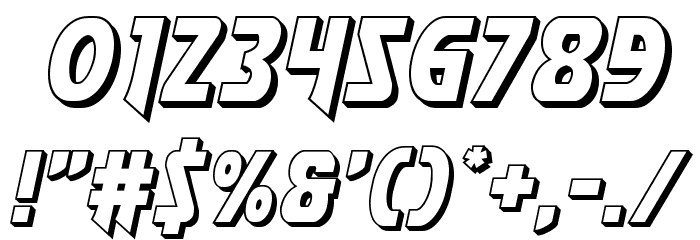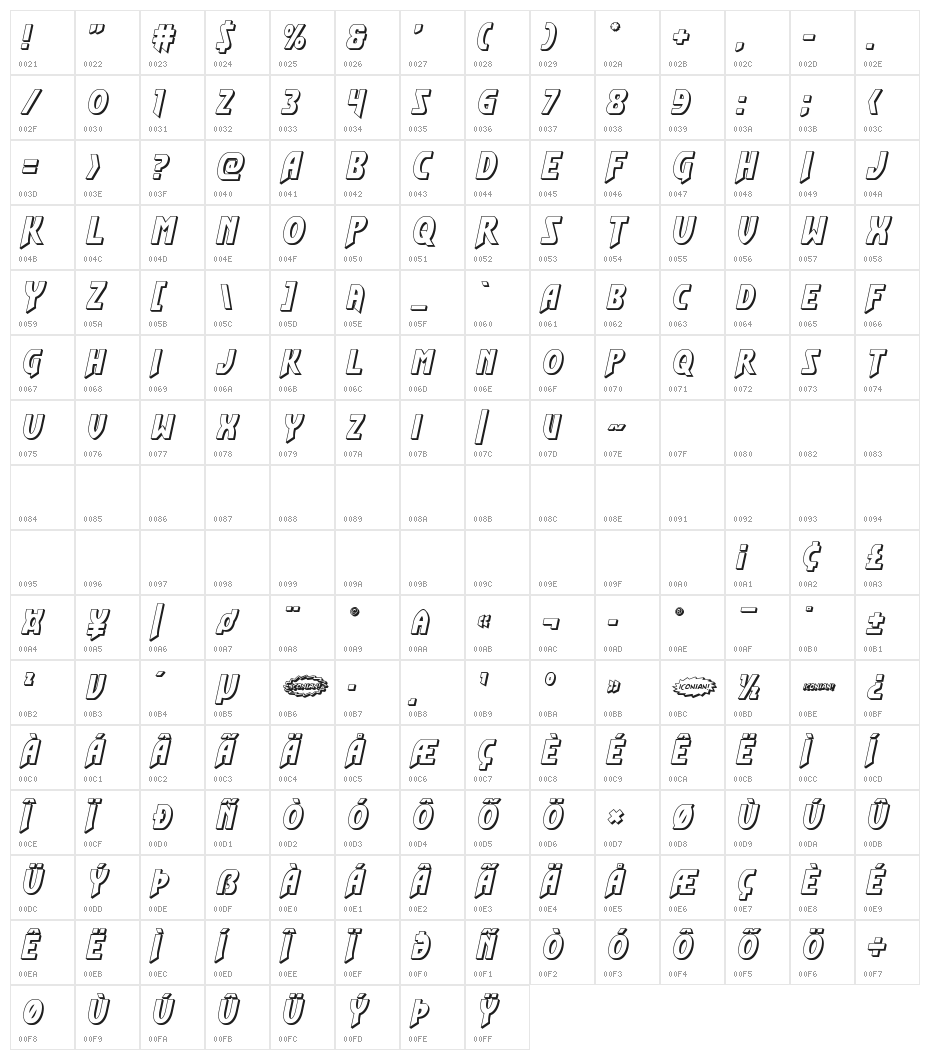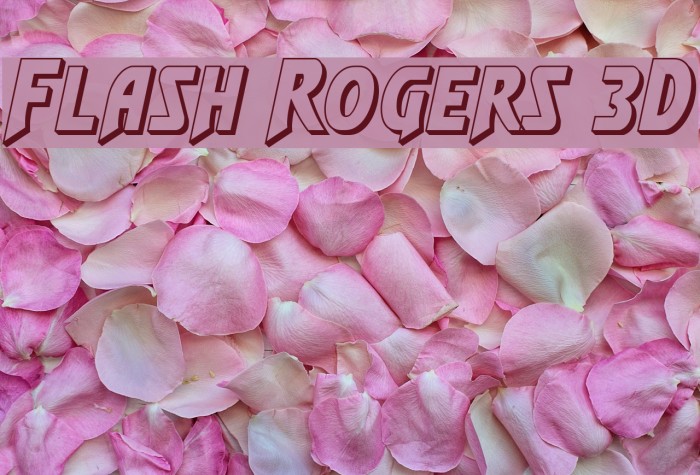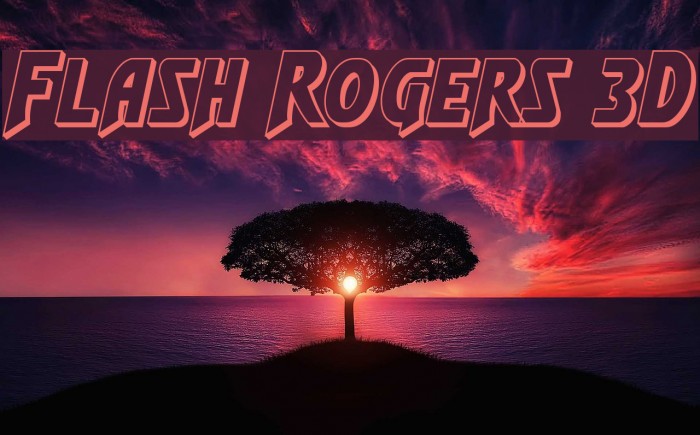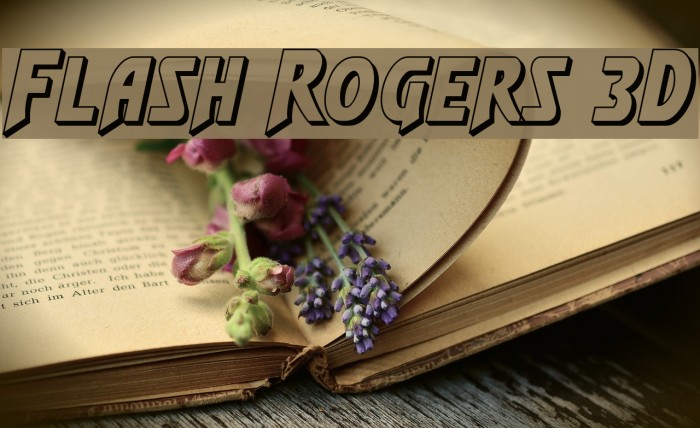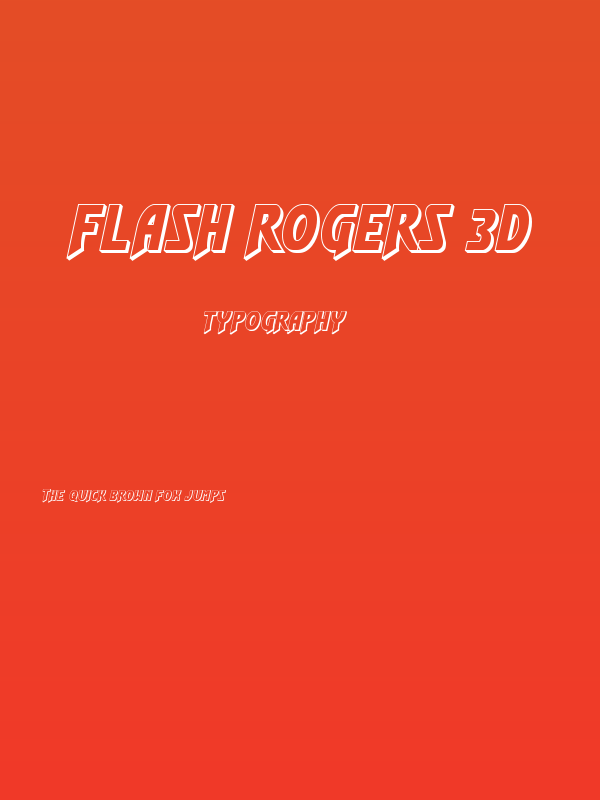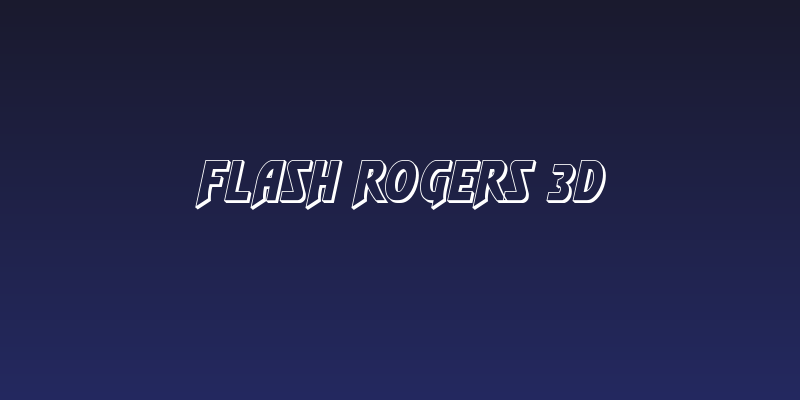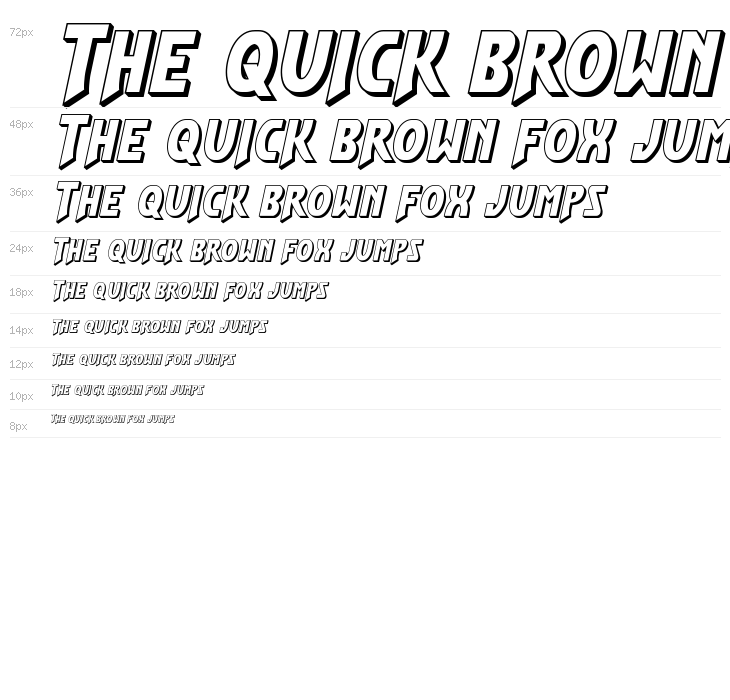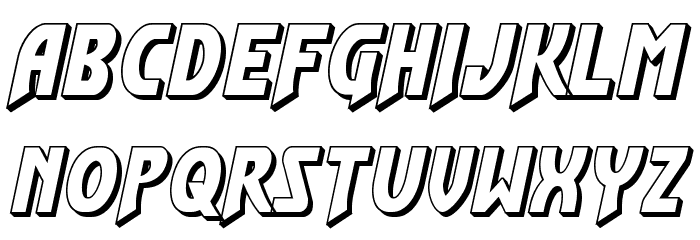
Flash Rogers 3D Font
Flash Rogers 3D Description
This font features a bold, three-dimensional style with a strong, dynamic presence. The letters are capitalized with a slight slant, giving them a sense of motion and energy. Each character is outlined, enhancing the 3D effect and making it stand out against any background. The design is reminiscent of comic book or superhero aesthetics, with sharp angles and a modern flair. The numbers and special characters maintain the same bold and energetic style, ensuring consistency across all text elements.
| Proposed Projects | Ideal for comic book titles, superhero-themed projects, posters, and dynamic branding. |